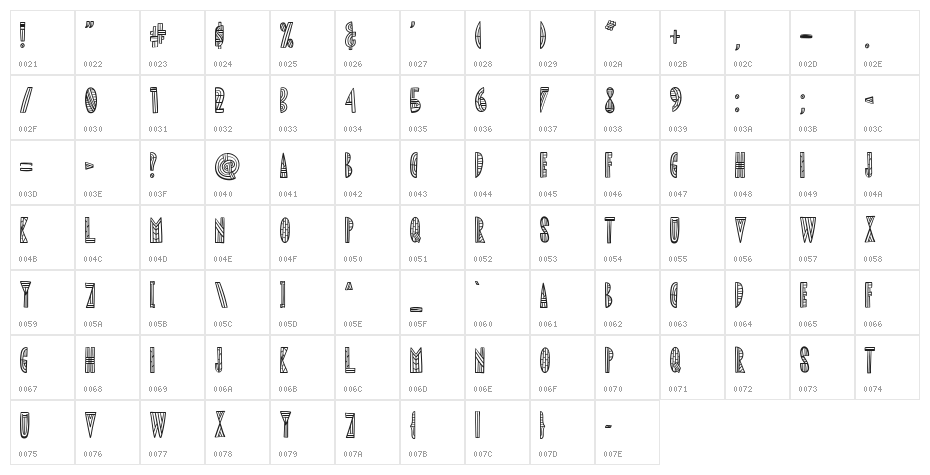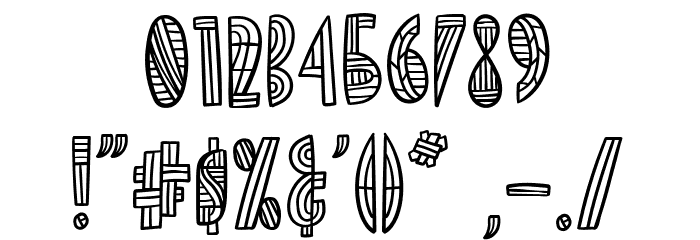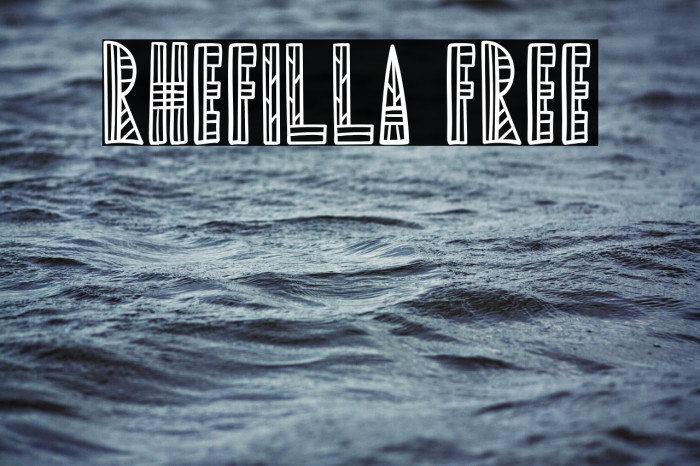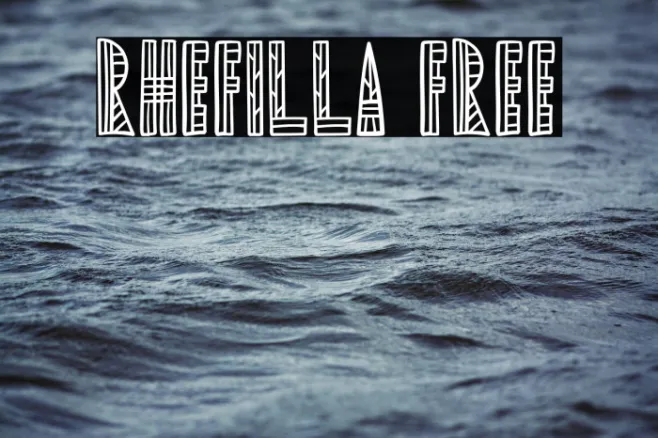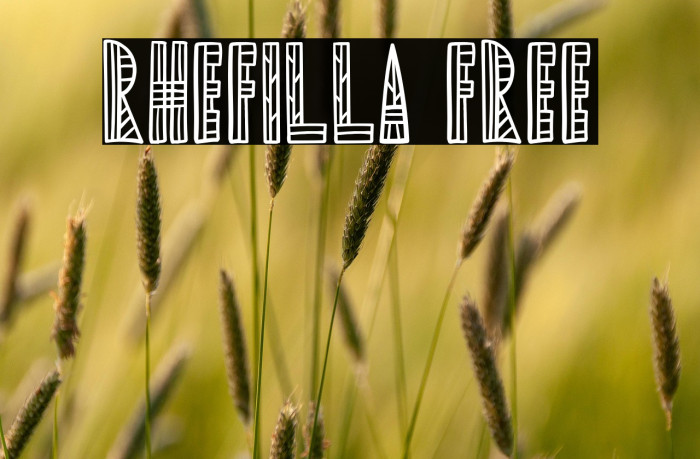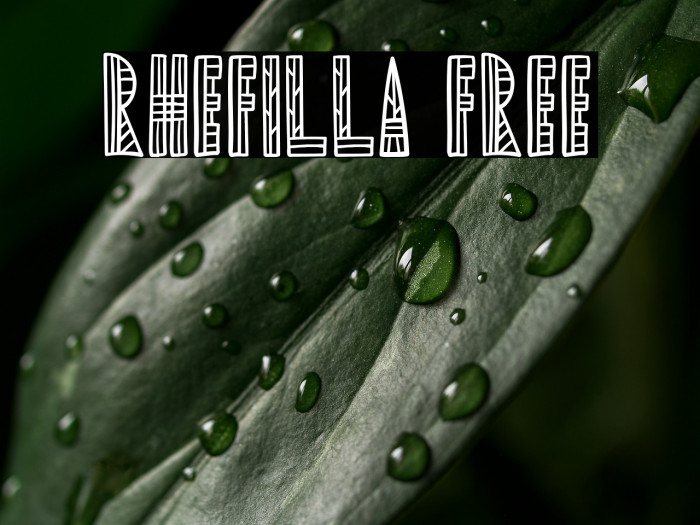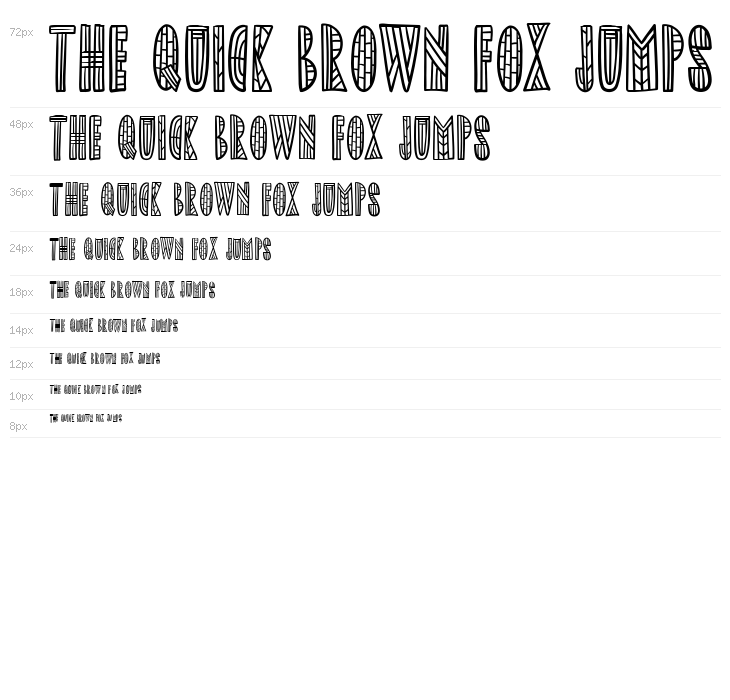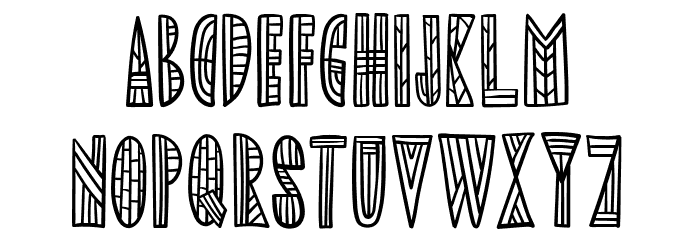
Rhefilla FREE Font
Rhefilla FREE Description
This font features a bold, decorative style with intricate line patterns within each character, creating a visually striking appearance. The uppercase letters are designed with a mix of vertical and diagonal lines, giving them a unique, artistic flair. The numbers and special characters follow the same pattern, maintaining consistency throughout the set. The font's playful and creative design makes it ideal for projects that require a standout, artistic touch. Its boldness and decorative elements suggest a strong presence, perfect for capturing attention.
| Proposed Projects | Ideal for posters, album covers, creative branding, and any project needing a bold, artistic touch. |